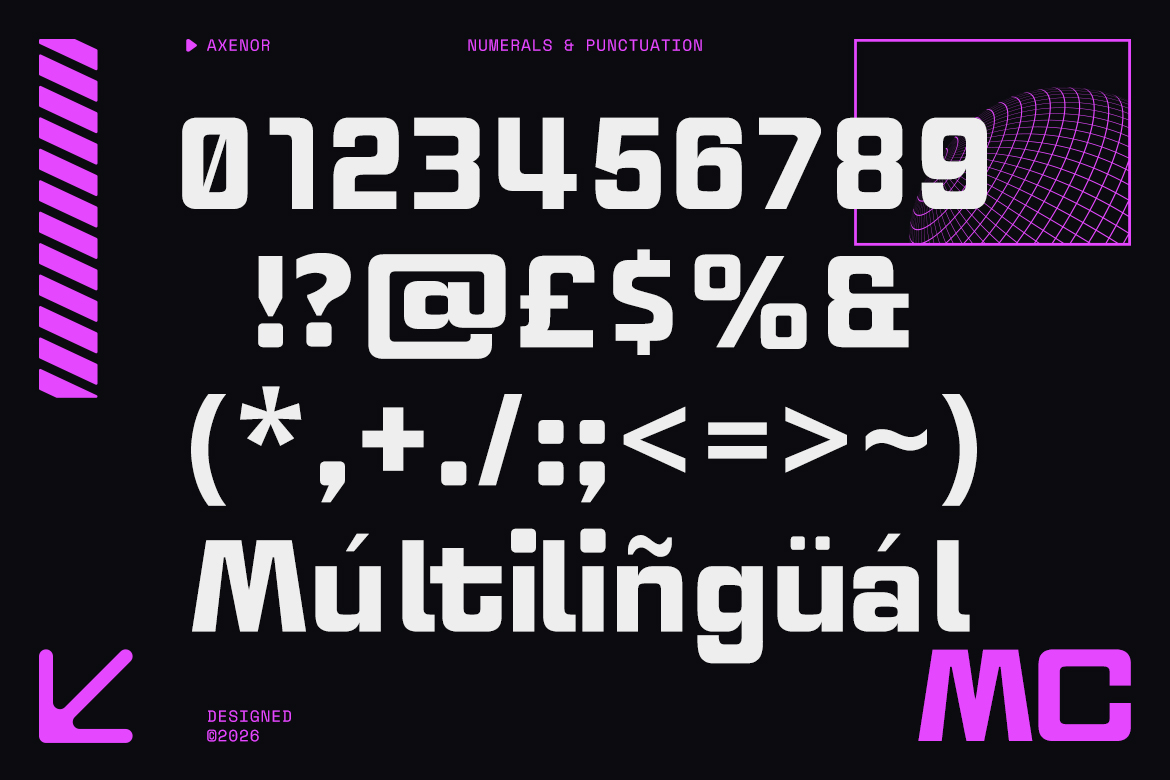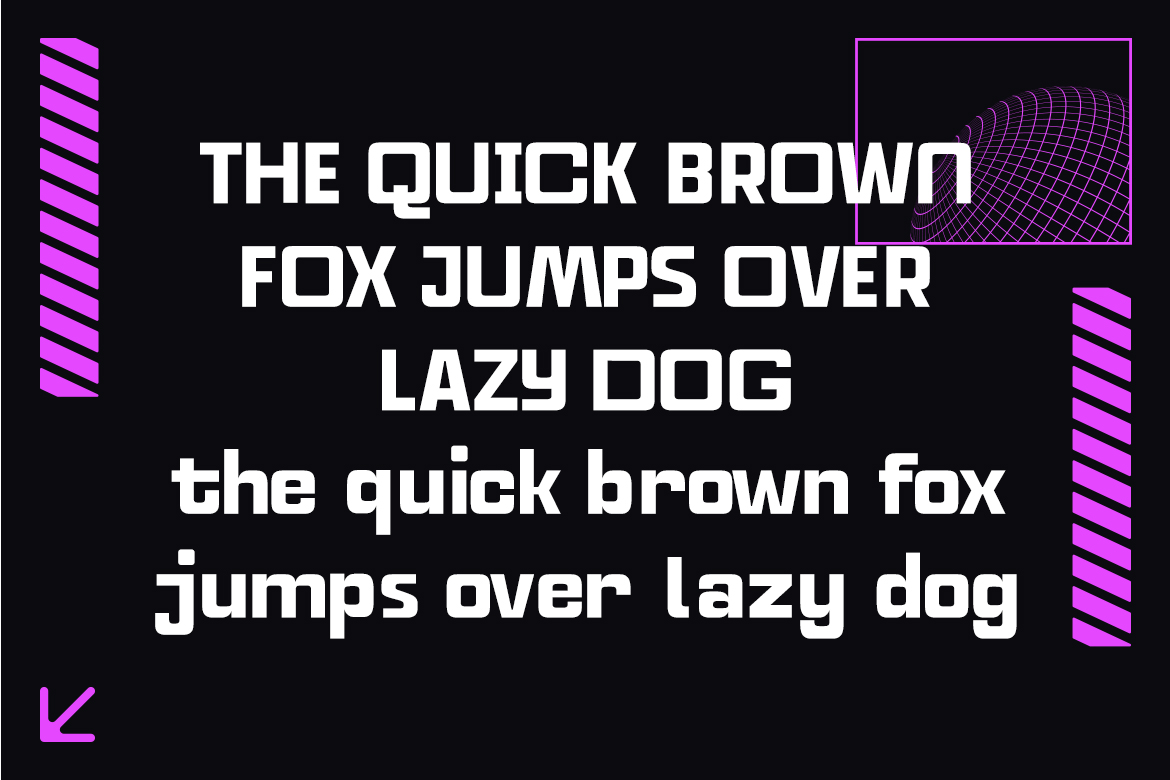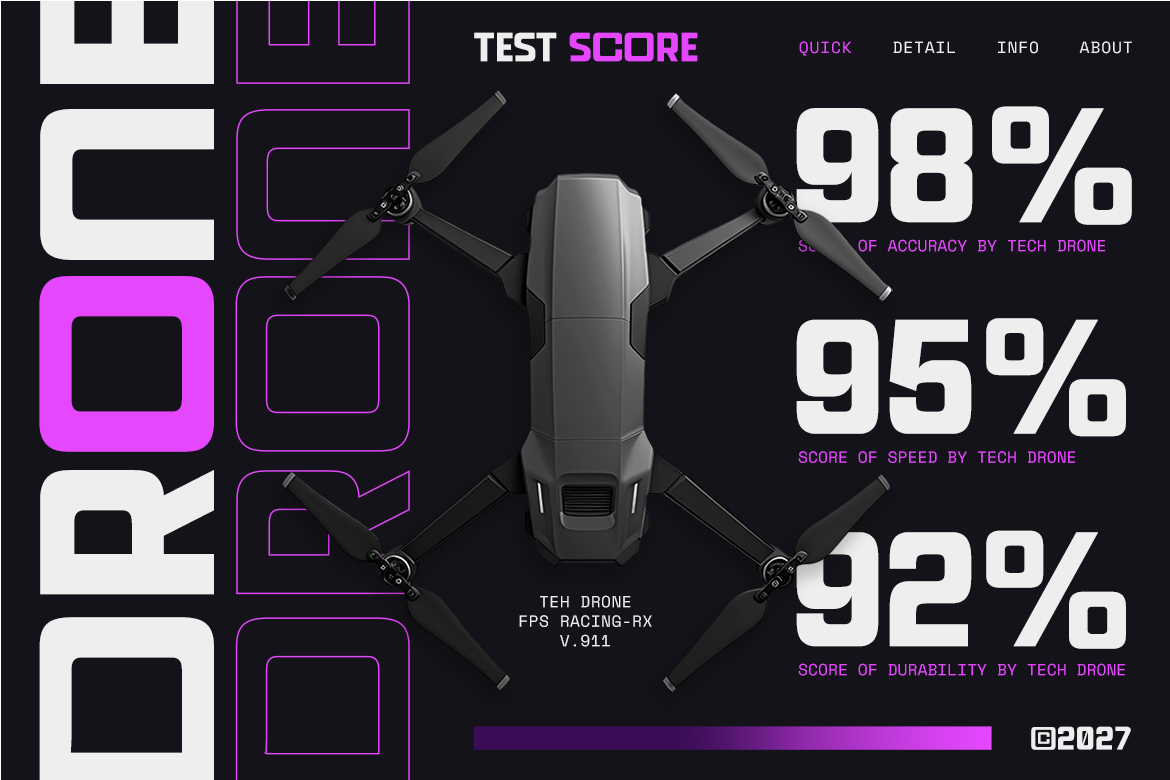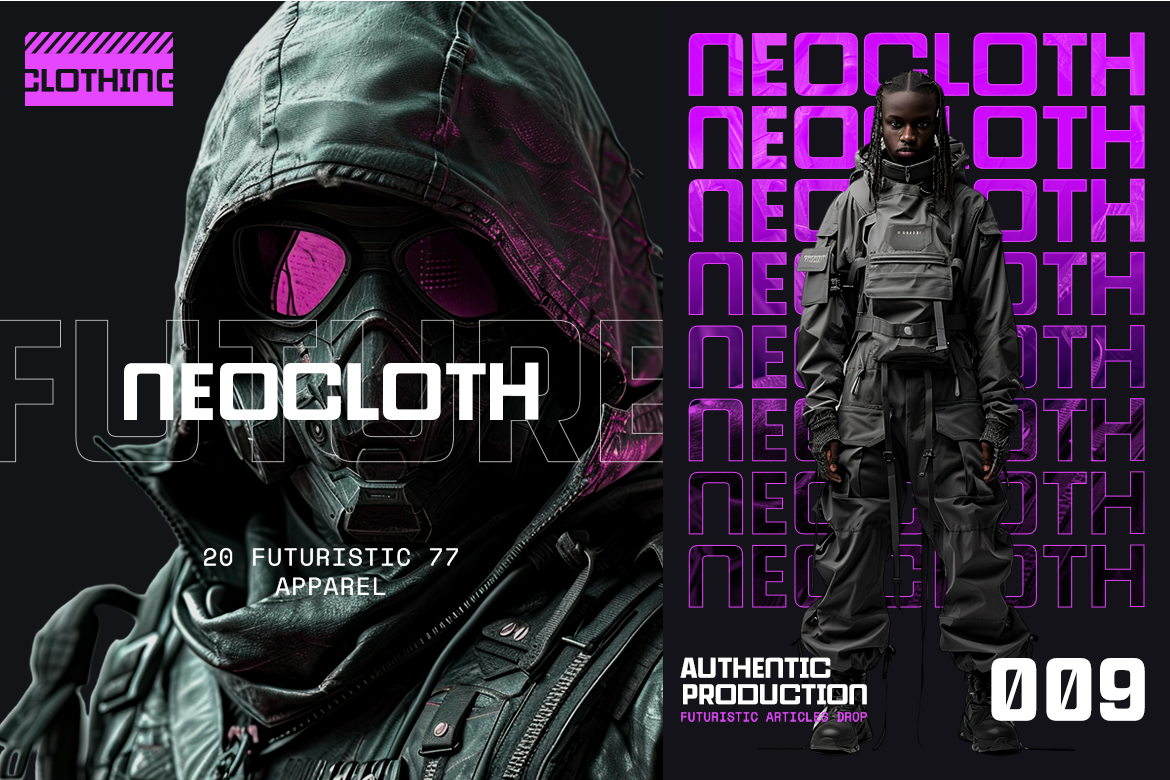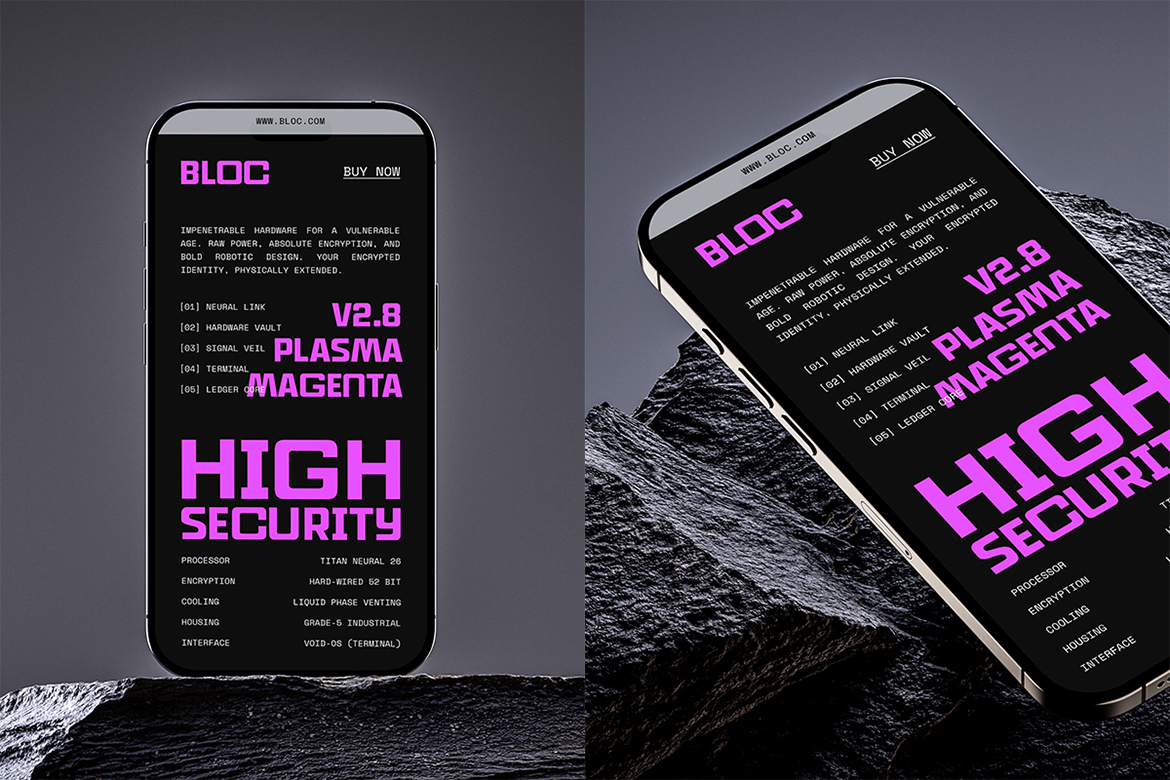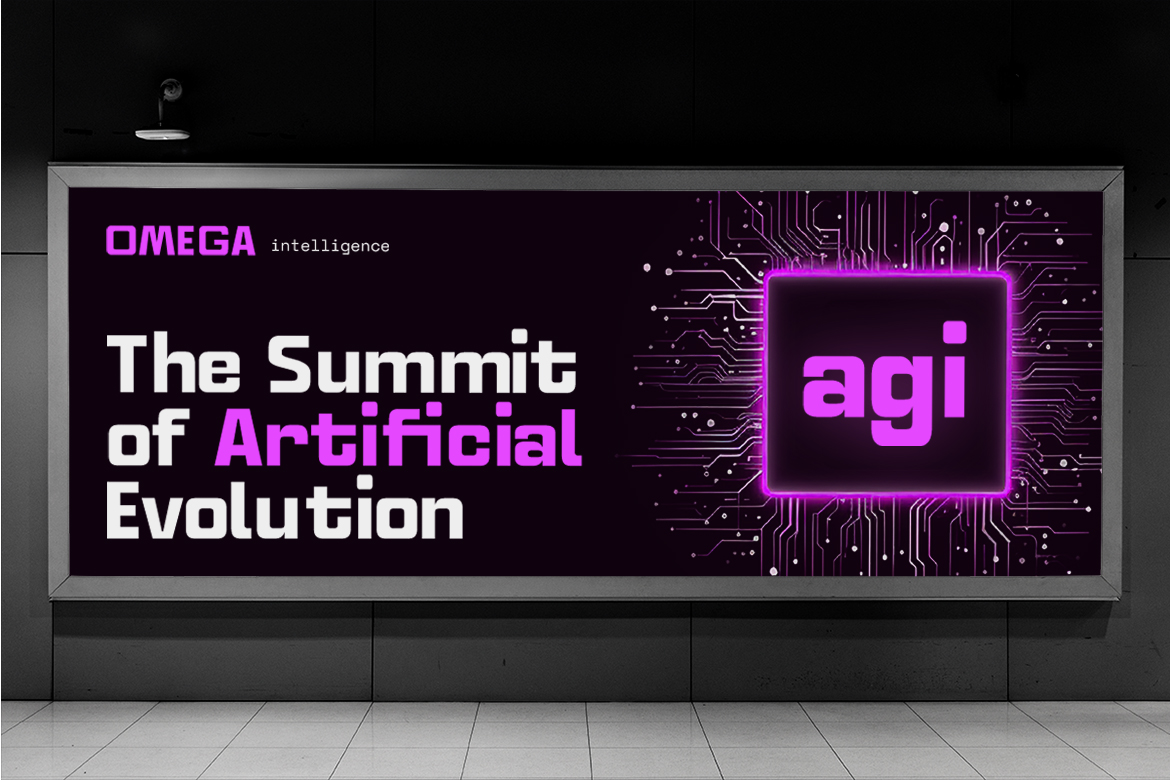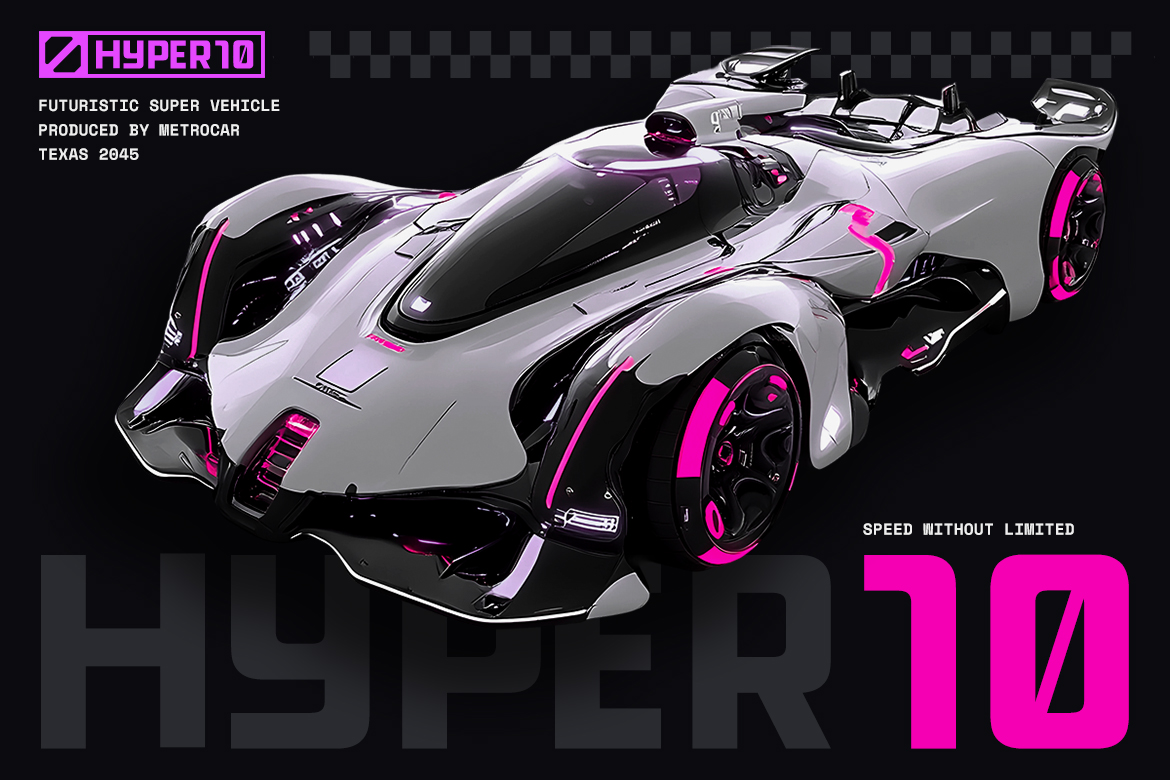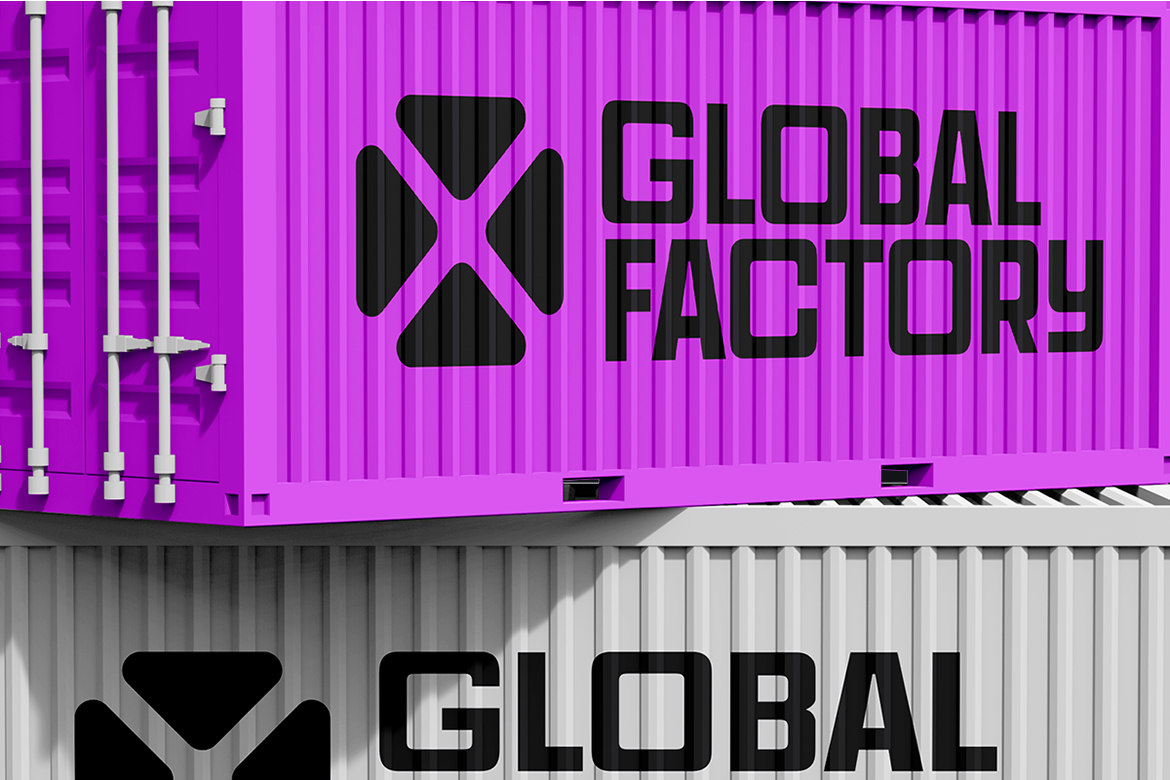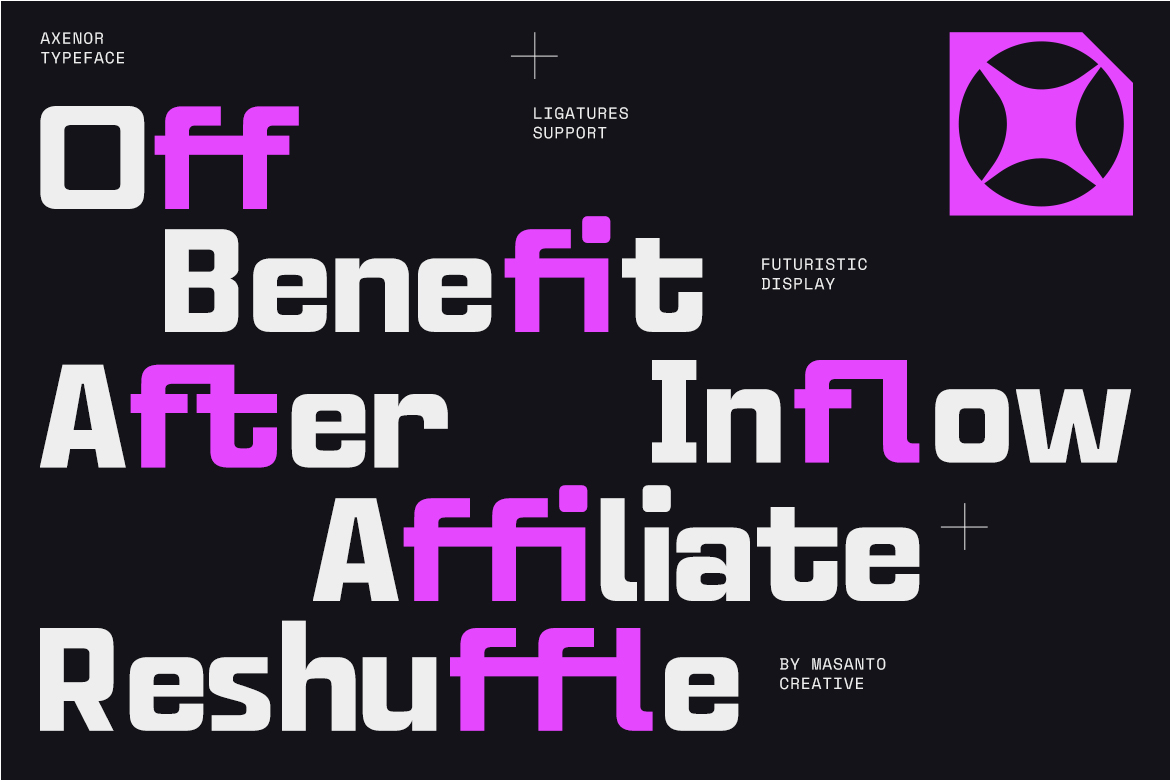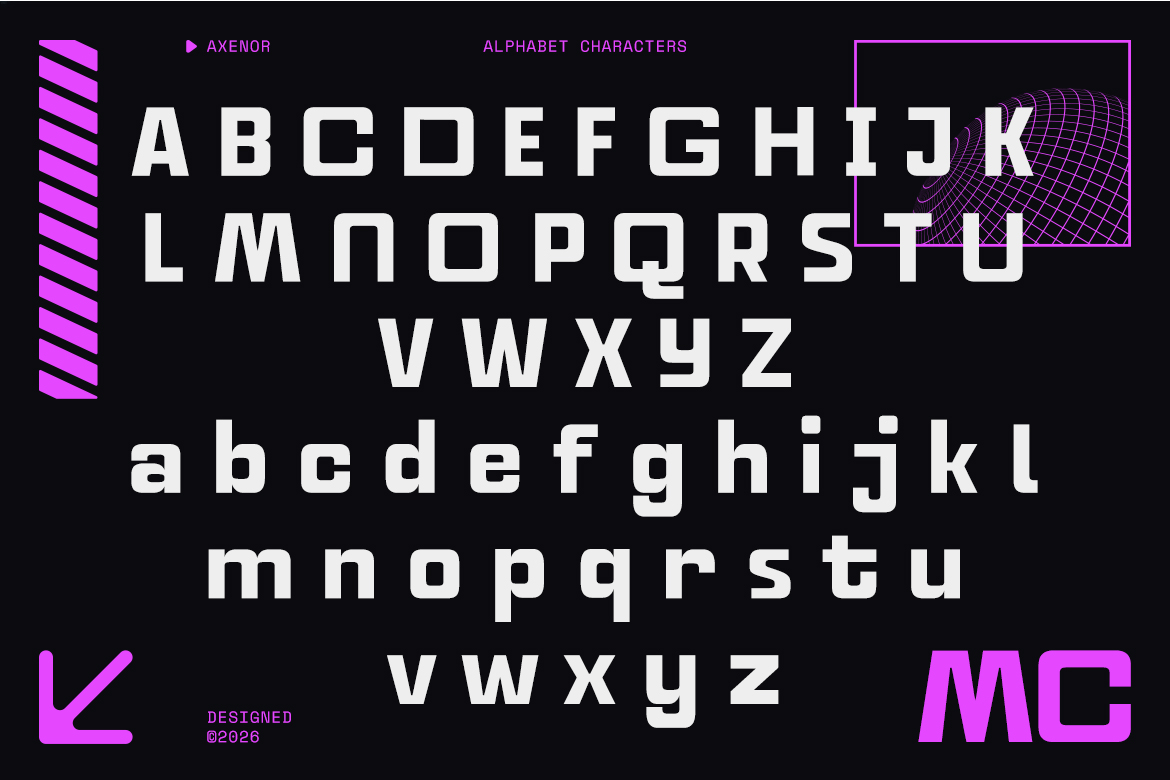
Axenor – Futuristic Cyberpunk Display Font
About Axenor – Futuristic Cyberpunk Display Font
Axenor is a bold futuristic display font inspired by cyberpunk aesthetics, AI technology, robotics, and modern industrial design. Perfect for tech branding, gaming titles, posters, UI design, automotive concepts, and sci-fi visuals.
Axenor is a high-impact futuristic display typeface engineered for next-generation digital branding. Built with bold geometric construction, sharp terminals, and modern industrial proportions, this font delivers a strong cyberpunk and tech-driven personality.
Designed for 2026 and beyond, Axenor blends robotic precision with contemporary display typography — making it perfect for cutting-edge visual projects.
Features:
• Uppercase & Lowercase Characters
• Numerals & Punctuation
• Multilingual Support
• Ligature Support
• Strong Geometric Structure
• Futuristic & Cyberpunk Aesthetic
Perfect For:
• Tech Branding & Startups
• Gaming Titles & Esports
• Sci-Fi Posters
• Automotive Concepts
• UI/UX Interfaces
• AI & Blockchain Projects
• YouTube Thumbnails
• Product Packaging
Axenor works best in large sizes for headlines, logos, posters, and high-impact digital visuals.